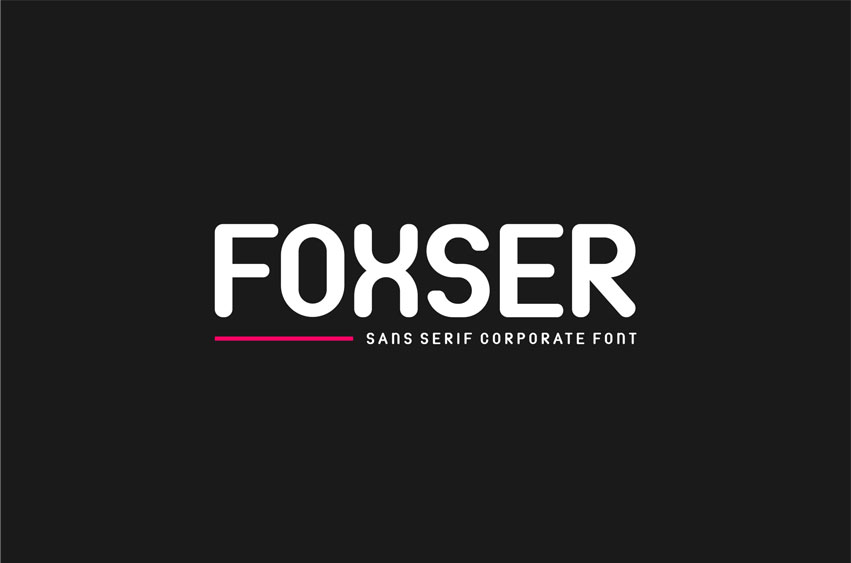
Foxser Font
Foxser Font Modern Font is a bold and authentic display font. The font is suitable for any branding project, like logos, esport, and many more.